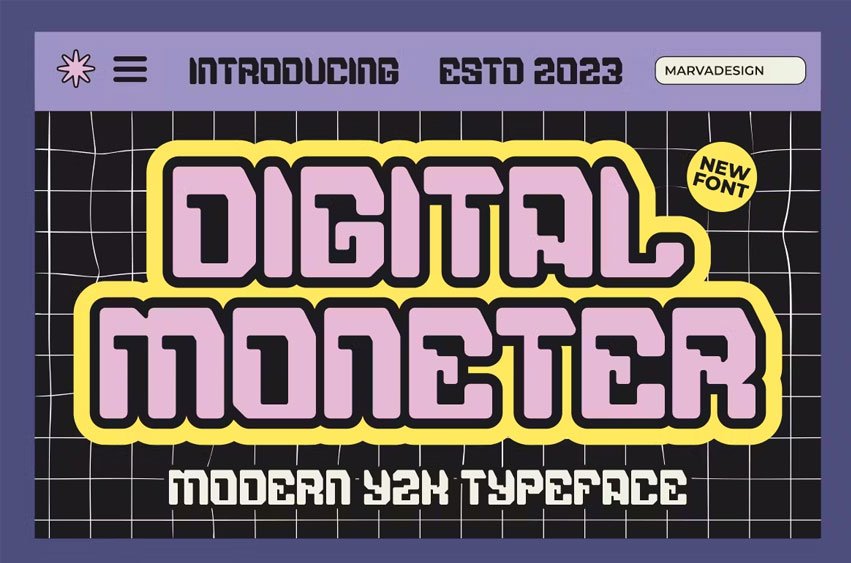
Digital Moneter Y2K Font is a modern Techno Y2K Font authentic display font. The font is suitable for any branding project, like a logo, a template design, a product, and many more. outstanding in a wide range of contexts.